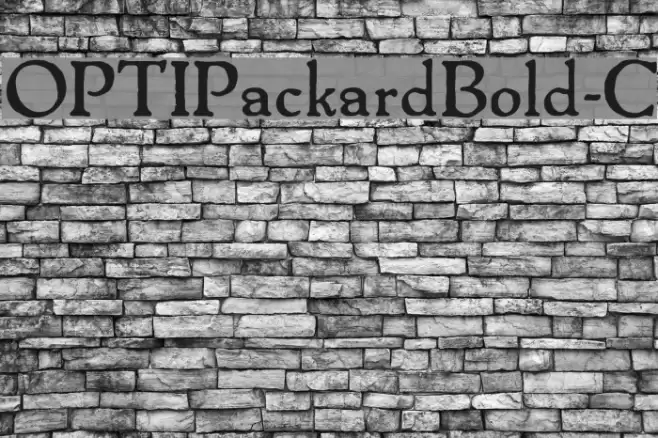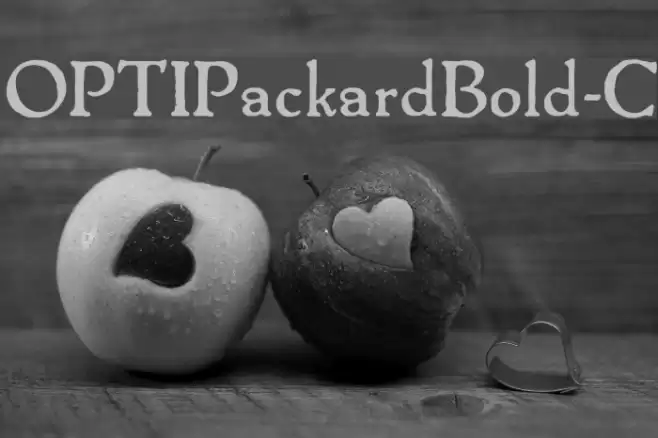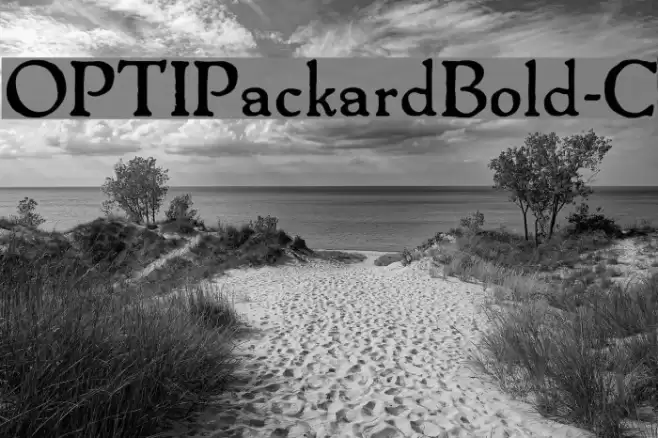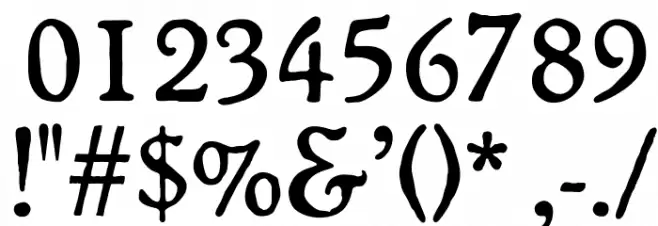
OPTIPackardBold-C
This font features a bold and distinctive style with a classic serif design. The characters exhibit a slightly uneven, hand-crafted appearance, giving it a unique and artistic flair. The uppercase letters are bold and prominent, while the lowercase letters maintain a consistent style with slightly exaggerated serifs. The numerals are clear and easy to read, with a traditional form that complements the overall design. Special characters are well-integrated, maintaining the font's cohesive look. This font's combination of boldness and classic serif elements makes it suitable for a variety of creative projects.
A bold, classic serif font with a hand-crafted, artistic appearance.
- Proposed Projects: Ideal for vintage-themed designs, book covers, posters, and branding projects that require a classic yet artistic touch.
- Category: Serif
- Overall Style: Vintage
- Use Case: Headlines, Logos, Posters